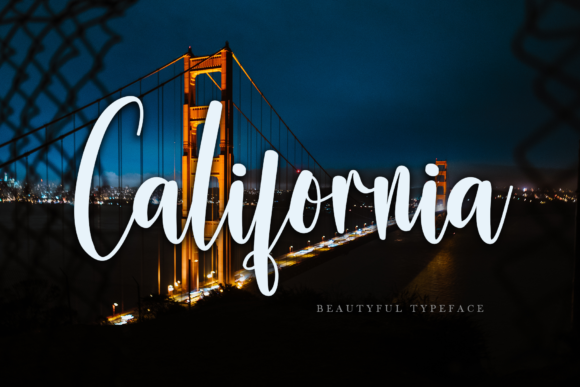
Unleash Your Creativity with Brushely Font
Introducing the Brushely Font, a unique display font created with the help of a brush pen. This font is designed to add a personal touch to your creative projects, making them truly one-of-a-kind. With its organic and hand-drawn feel, the Brushely Font is a valuable asset for designers looking to add a touch of uniqueness to their work.
Whether you’re a graphic designer, illustrator, or simply someone who loves to express themselves through art, the Brushely Font is a must-have in your creative arsenal. Its versatility and charm make it perfect for adding a personal touch to your designs, making them truly stand out from the crowd.
Brushely Font Key Features
- Unique Characteristics: Brushely Font features a unique blend of hand-drawn and digital elements, creating a distinctive, high-end look.
Brushely Font Review
As a designer, I was excited to dive into the Brushely Font, and I must say, it has some great qualities. ✨ The font’s unique blend of script and brushstrokes gives it a beautiful, hand-drawn feel that can add a touch of elegance to any design. ✨ The font is also highly customizable, allowing designers to adjust the stroke width, spacing, and other parameters to fit their specific needs. ✨ Additionally, Brushely Font comes in a range of styles, from casual to formal, making it suitable for a variety of applications.
- Unique blend of script and brushstrokes
- Range of styles available
However, I did encounter some limitations. ⚠️ The font can be a bit challenging to read, especially at smaller font sizes. ⚠️ Additionally, the font’s complexity can make it difficult to pair with other fonts, as it can be quite dominant. ⚠️ Lastly, the font’s file size is quite large, which can impact page load times.
- Can be challenging to read at smaller font sizes
- Difficult to pair with other fonts
- Large file size
Overall, I would give Brushely Font 4 out of 5 stars. While it has some limitations, its unique look and high customizability make it a great choice for designers looking to add a touch of personality to their projects.
Tips for Getting the Most Out of Brushely Font
For the best results, use Brushely Font in combination with other creative fonts and design elements. Experiment with different font sizes, styles, and colors to achieve a unique look. You can also use Brushely Font in conjunction with graphics and images to create visually appealing designs.
Brushely Font is ideal for creative projects such as:
- Graphic design
- Print materials
- Branding
- Advertising